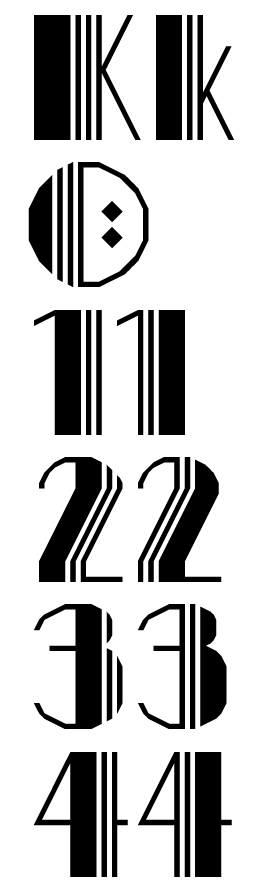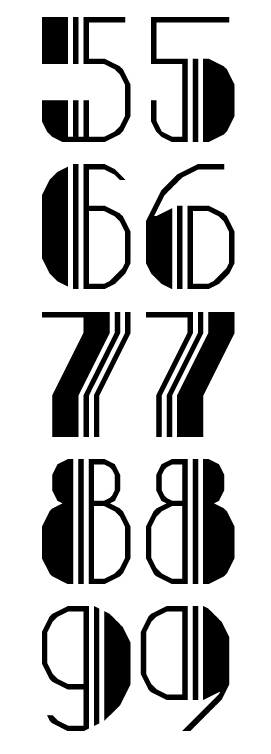
RM DECOr FS 1.0
by p2pnut
Finished: Basic Latin More Latin Extended Latin A
like a phoenix rising from the ashes. this is magnificent.
Simply incredible. What a labour of love.
I really enjoyed doing this one.
As I have not done this before (and am terrible at languages other than English!), is it a good thing to complete the set with the Extended Latin A & B? I could quite get into adding them ... but would it make the download time too great?
This reminds me of Art-Lover, which I've just used on a project.
A jazzy new face that brings us back to the 1930s. Beautiful.
Oh dear, it certainly is like Art-Lover. I certainly didn't know about this font when I started. It is a fairly typical variation on a common Deco theme and my original inspiration was Atlas - http://www.fontbros.com/cgi-bin/commerce.cgi?preadd=action&key=HAFO-ATLA
I just started with the uppercase 'O' and it all flowed from there. The lowercase was just a logical progression (I notice now that neither Atlas or Art-Lover have a lowercase set).
I guess you gave me such a low rating because you think I had plagiarised Art-Lover, janking. I can assure you that I didn't. With so many professional designers on this site, it would be silly to try. I am not involved in the design world and just do this as a hobby ... there would be no satisfaction in ripping off another's work.
Great work.
I like the lower case, but this doesn't do anything new, or add any Fontstructisms. I think I'd get a better result using any Art Deco font to achieve a cleaner result.
Saying that it's still a very strong effort.
I also had a closer look, and tweaked the two K's, and all the numbers.
Here they are in a row. I ditched the 2nd 8 & 9, they looked pants.
Thanks for tha nippa - I like the K, k, 5, 6 & 9 and will get round to them soon. However, I think I prefer to have the consistency of the other numbers (thick line to the left).
Whilst I realise that it is far from unique (especially since seeing Art-Lover) I enjoyed the excercise. I got a bit dispirited when I saw janking's post and thought about deleting the whole thing ... but what the hell, I'm only doing it to amuse myself. If others like what I do then it's a bonus - if they don't, it's no biggy ... nobody died.
Absolutely. Don't let a low vote put you off. The doing of Fontstructions is the most fun/torture. The best work is a combination of both! What happens to your babies once you've published them doesn't matter much.
Very classic. Good work.
gee tag, you made me start to think that low-votes could be considered - in a best-spin scenario - as a badge of honor. if trolls take the time to actually log in and click on your font and click to low-vote it - it says a lot about the passion that your work stirs in them. albeit a misdirected passion but nonetheless. and i guess isn't that what art is supposed to do - make us react and respond? so i guess in the fs universe everyone or thing has its purpose :)
Can't keep a good FonStructor down ... I'm doing the Extended Latin A. ELB looks horrendous - do many of you do all the 4 Latin Sets? Does it make the download time too offputting?
Very rich work, full of surprising solutions (very cool @ :-). It looks very good in pixel size. Great also to see the extra work put on diacritics.
I think both S & s are not quite there yet, but I know how difficult it is to make them.
Here (at long last) is the image of the font that inspired DECOr
I have just received my complimentary copy of Hans Lijklema's new publication: Free Font Index 2 http://www.pepinpress.com/catalogue/view/172. It contains 30 of my designs (including this one) and I am extremely honoured to be in such august company.
very nice work, It's a piece of art
agree with Fontcollector, more exposure
As a casual pursuer, with slight dyslexia, this font is somewhat amazing with its lowercase inclusion. Thanks for the extent of your creative radius.